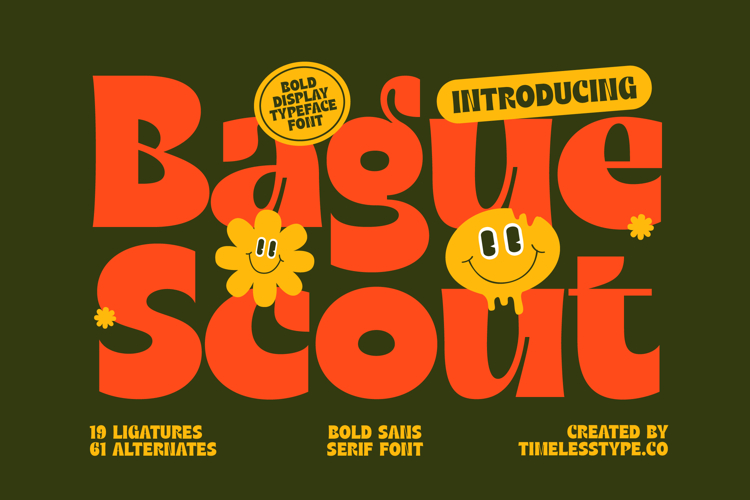
Bague Scout - Bold Sans Serif Font
Discover the captivating allure of Font Bague Scout - Bold Sans Serif Font Sans Serif, a truly distinctive typeface designed to make an unforgettable impression. Its bold display characteristics and smooth, rounded forms exude a vibrant energy, blending retro charm with contemporary sophistication. Perfect for projects demanding a strong visual presence, this font instantly elevates your design with its unique aesthetic and undeniable charisma.
Unlock unparalleled creative potential with Font Bague Scout - Bold Sans Serif Font Sans Serif, engineered for maximum design flexibility. Featuring an impressive collection of 19 expressive ligatures and 61 unique alternates, designers can craft bespoke typographic compositions that truly stand out. This font’s inherent versatility allows for endless customization, ensuring your message is delivered with impactful personality and artistic flair.
Achieve a truly global impact with the expansive capabilities of Font Bague Scout - Bold Sans Serif Font Sans Serif. With its extensive multilingual support, Font Bague Scout - Bold Sans Serif Font Sans Serif adapts seamlessly across global markets, making it incredibly versatile for international projects. This ensures your brand identity and message resonate effectively with diverse audiences, facilitating seamless communication worldwide.
Font Bague Scout - Bold Sans Serif Font Sans Serif is the definitive choice for projects requiring an attention-grabbing and memorable visual identity. It is perfect for luxury branding, dynamic packaging design, compelling editorial layouts, vibrant posters, and impactful headlines. Elevate your brand with a typeface that communicates both playful spirit and robust reliability, ensuring your work always leaves a lasting impression.